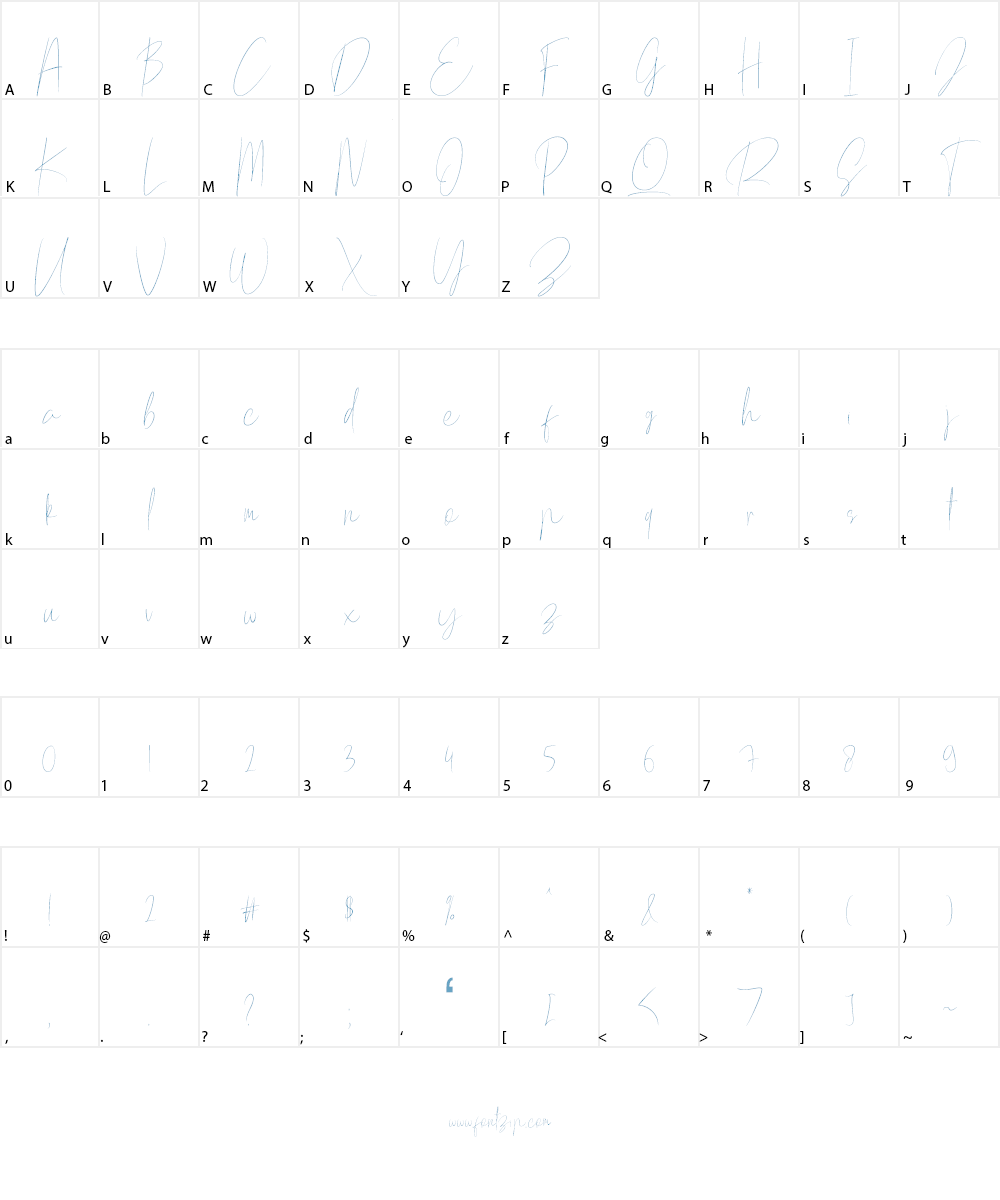
Introducing Mellati, a Luxury Signature from handwritten sketch. Mellati was created as the best choice for showing luxury in design. made from hand scratches that must look real. Mellati is suitable for use in a variety of media, such as posters, business cards, brand logos, invitations, banners, stationary, fashion, quotes and other media that require beautiful and luxurious writing. this is DEMO version. for full version, see on this link